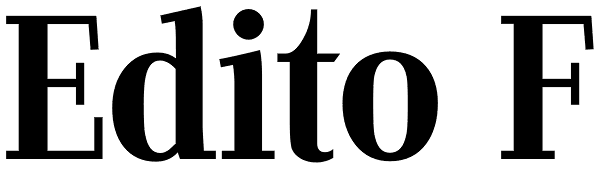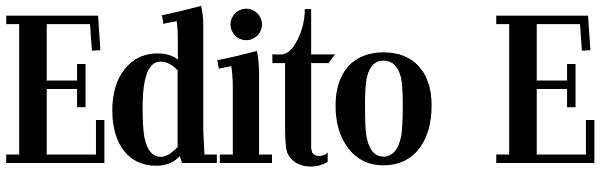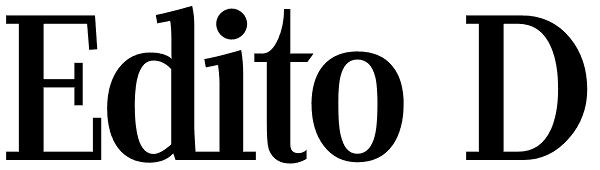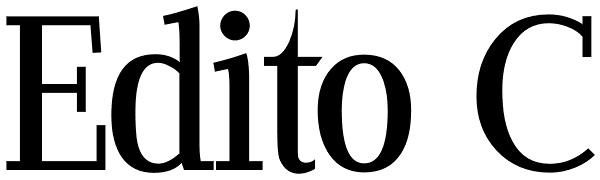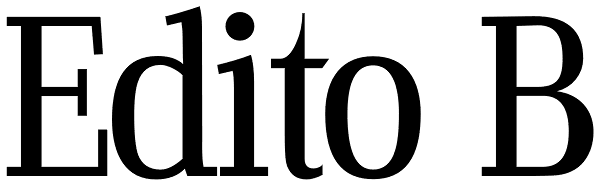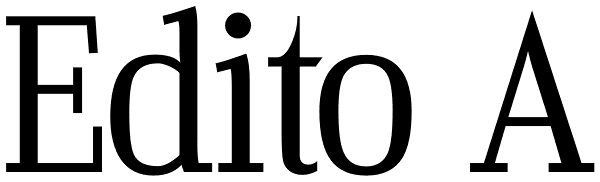
Edito
Edito is a completely new bodycopy font. The special thing about this font is, that all serifs have the same height. So no matter if you take the thinnest cut (A) or the fattest (F), you will always have aligning serifs. I started Edito as an...